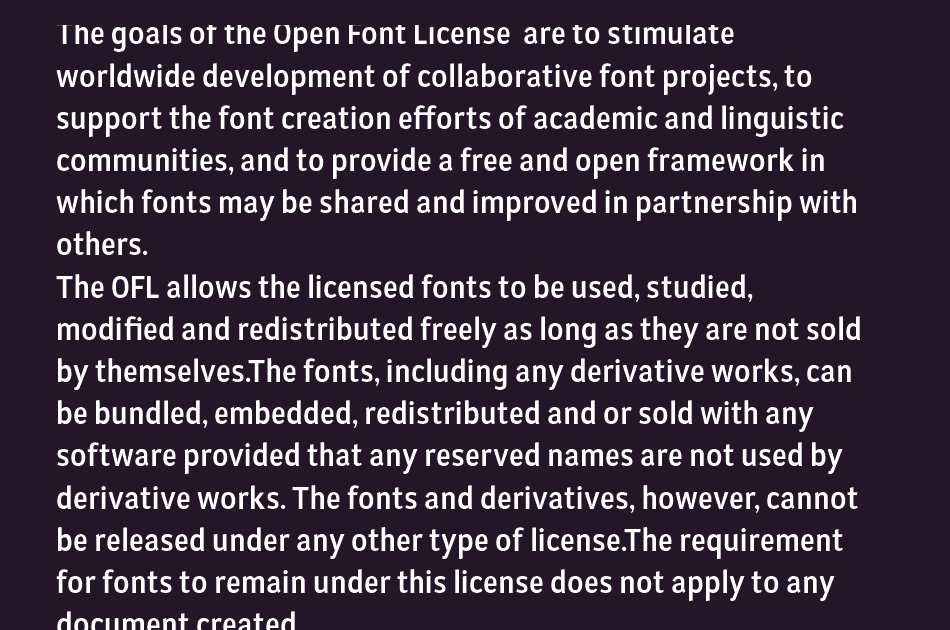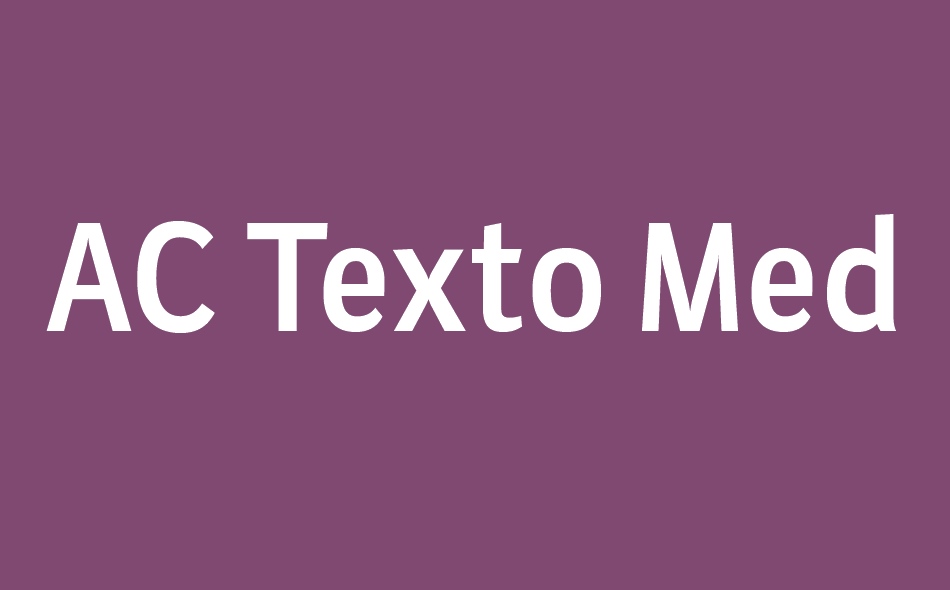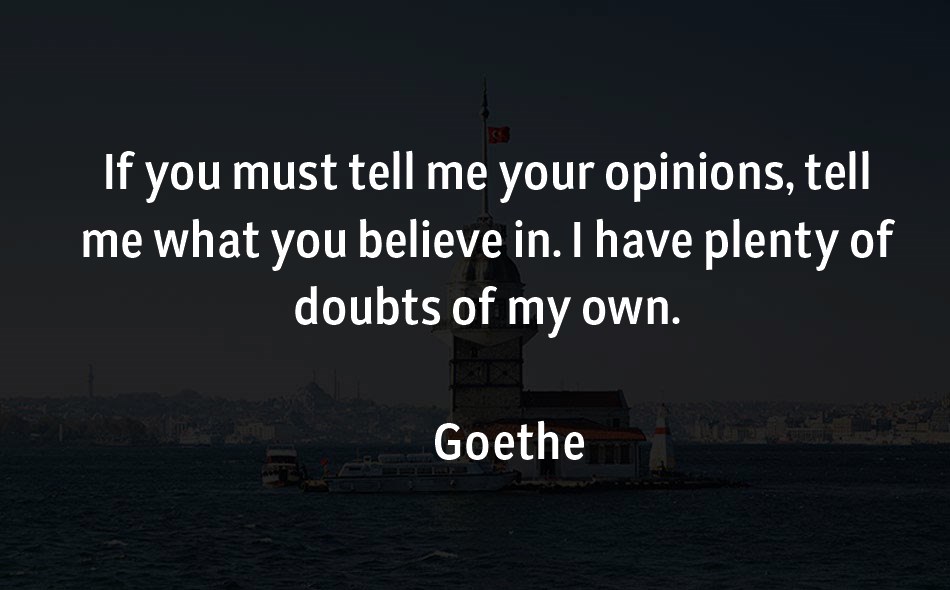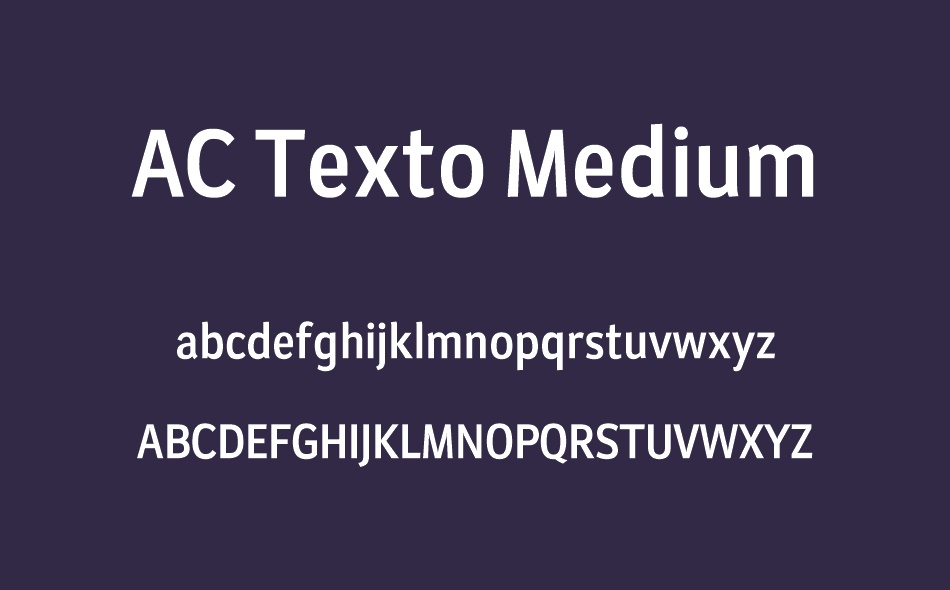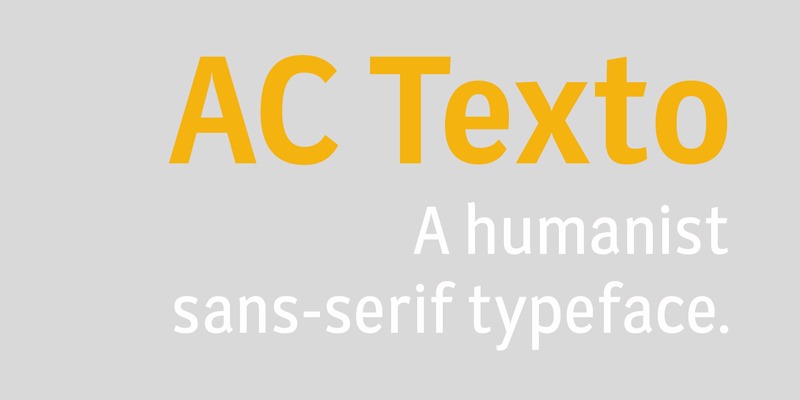
AC Texto font
AC Texto is a humanist sans-serif typeface designed by Antoine Crama and released in 2020. It comes in 9 weights. You can buy the full family athttps://www.myfonts.com/fonts/antoine-crama/ac-texto/
"A grotesk typeface is all you need to center around the imaginable inspiration of an amber gemstone."